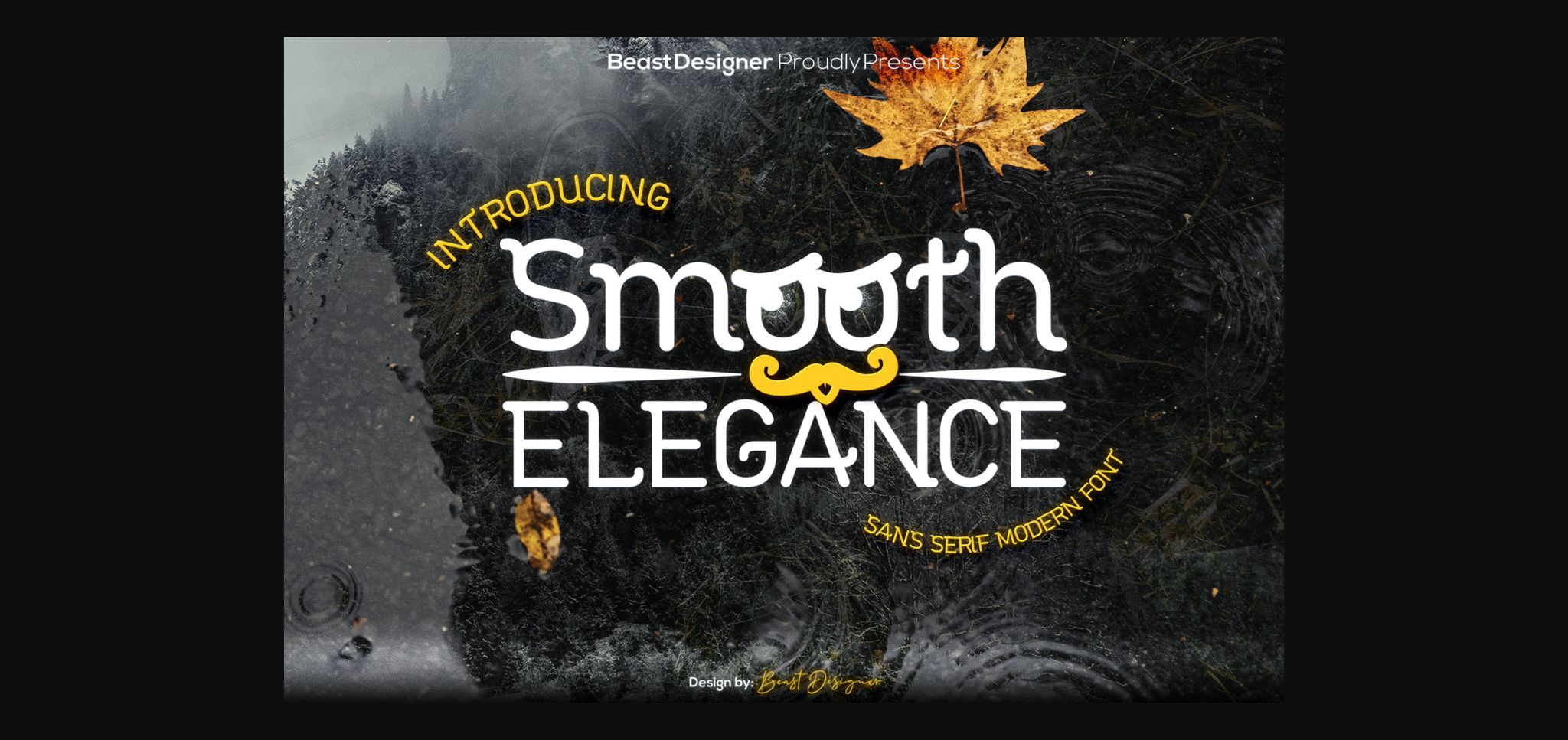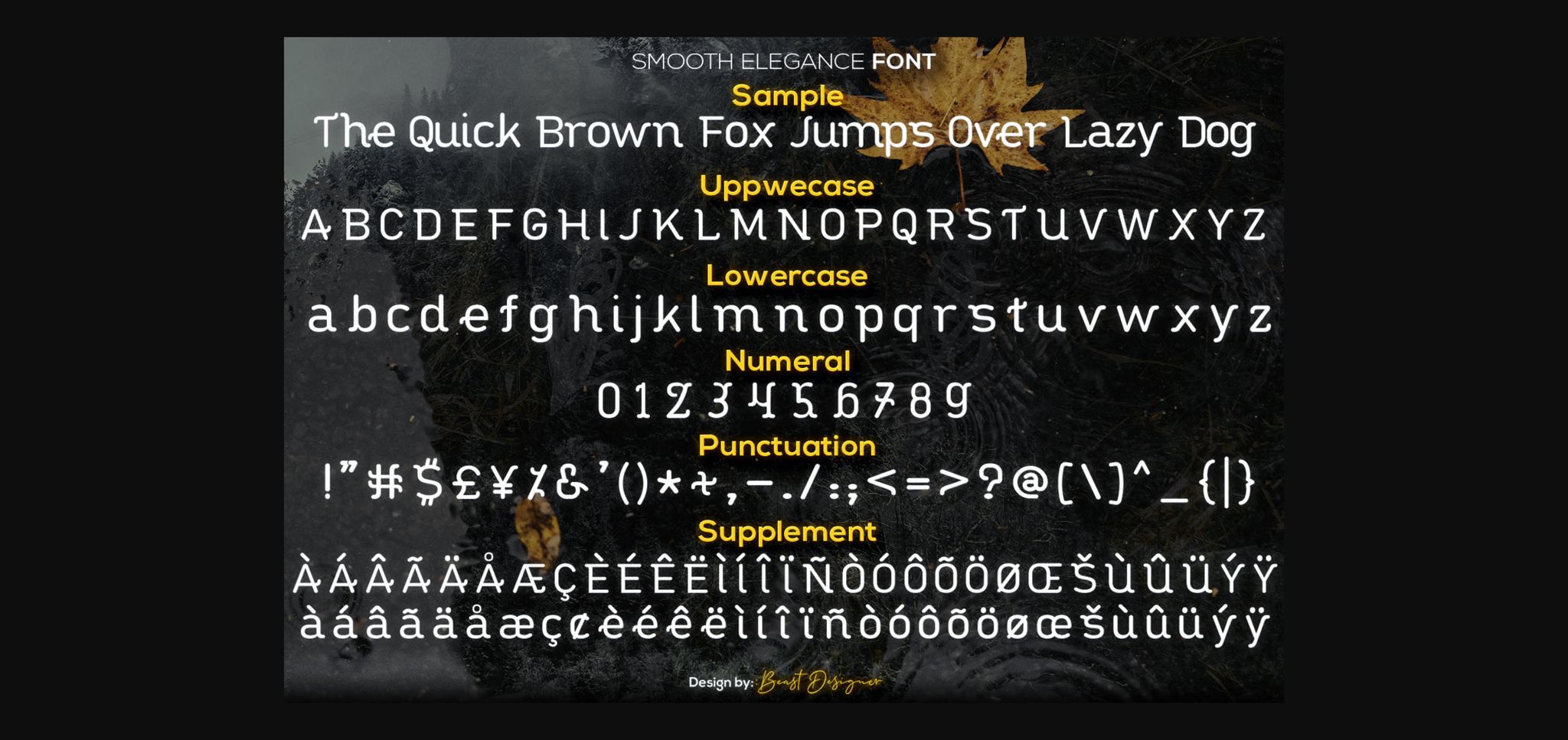
Smooth Elegance Font
Smooth Elegance Font is an elegant and casual sans serif font.
It is the best choice for creating eye catching logos, branding and quotes.
Fall in love with its incredibly distinct and timeless style and use it to create spectacular designs!